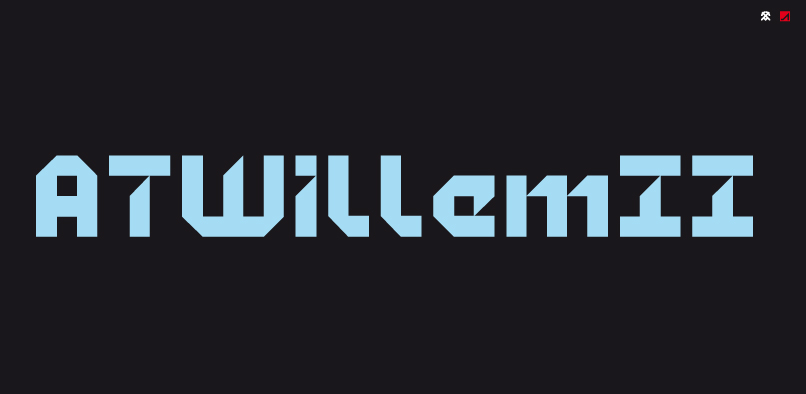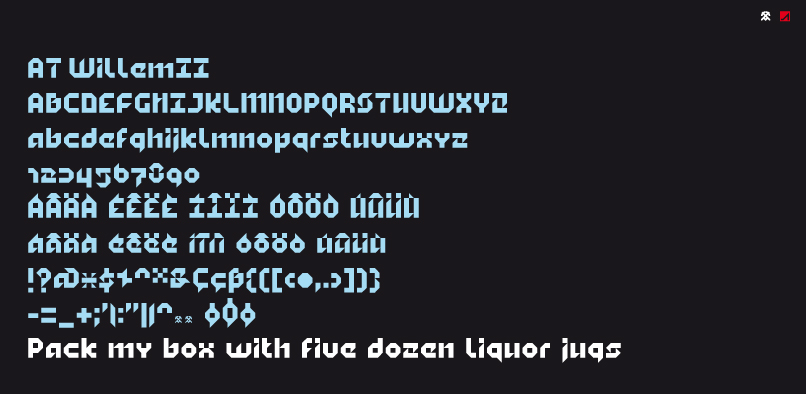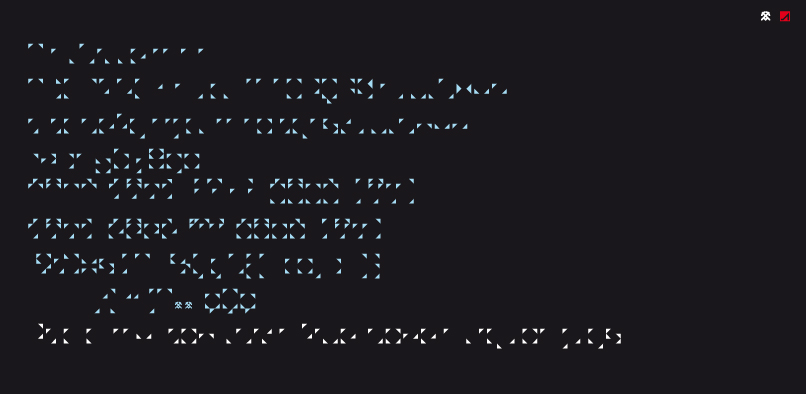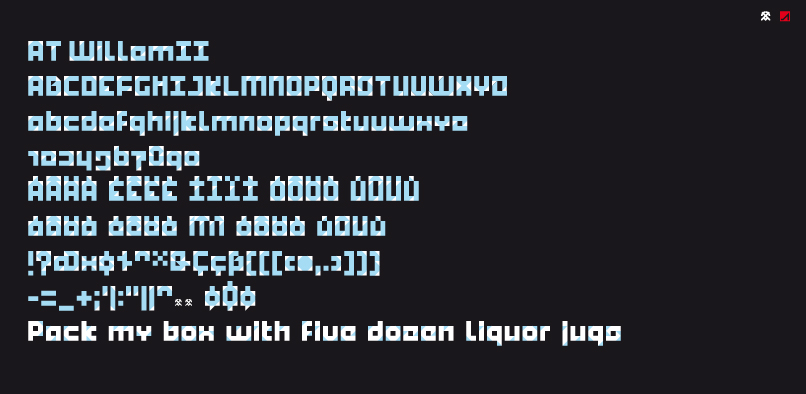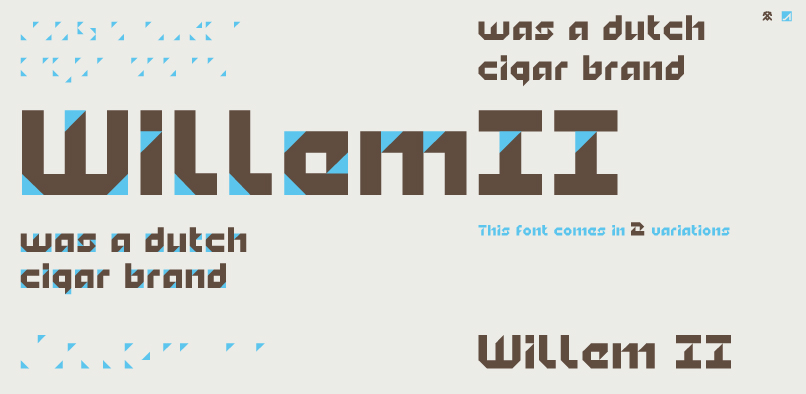
The AT Willem II was made out of a design we did for a cultural factory. By combining the two versions of the font you can make a block font with colored edges, cut off each corner of the character made out of a square block. The one completes the other.